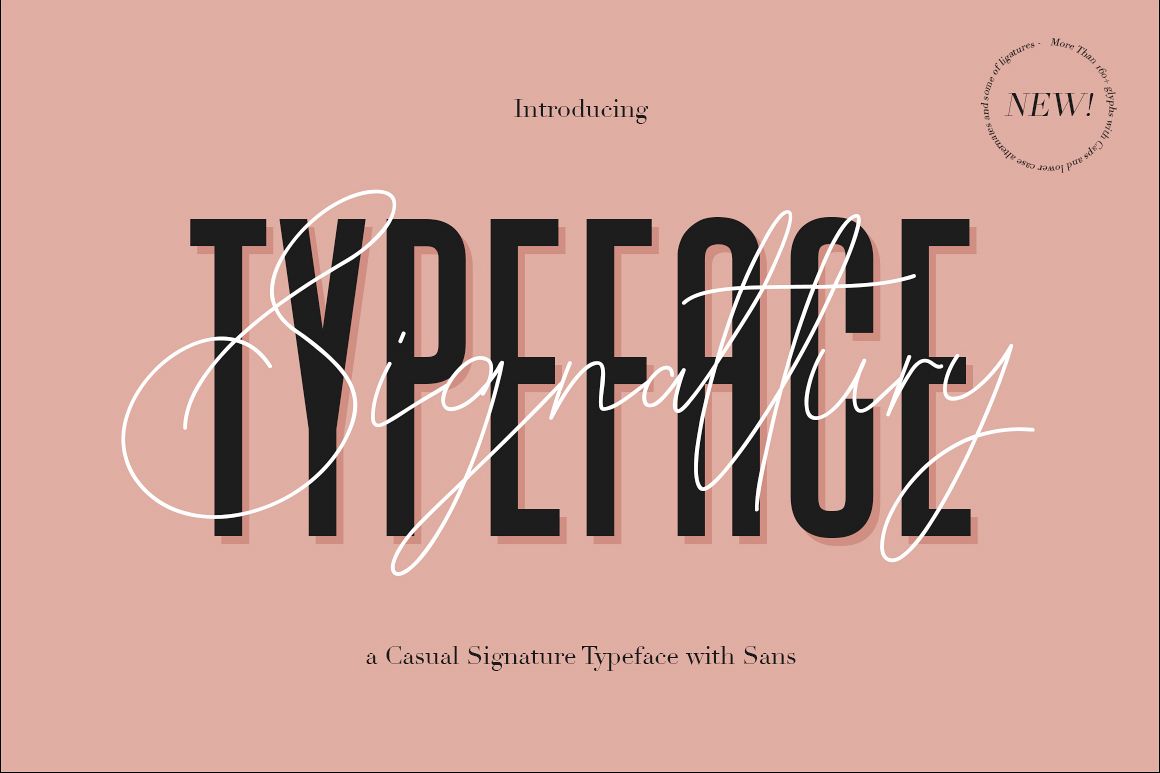
Signattury Signature Font - Free Sans
Give your designs an authentic handcrafted feel. "Signattury Signature Font" is perfectly suited to signature, stationery, logo, typography quotes, magazine or book cover, website header, clothing, branding, packaging design and more.Use the alternates in Adobe Illustrator and Adobe Photoshop, this is the quick tutorial: